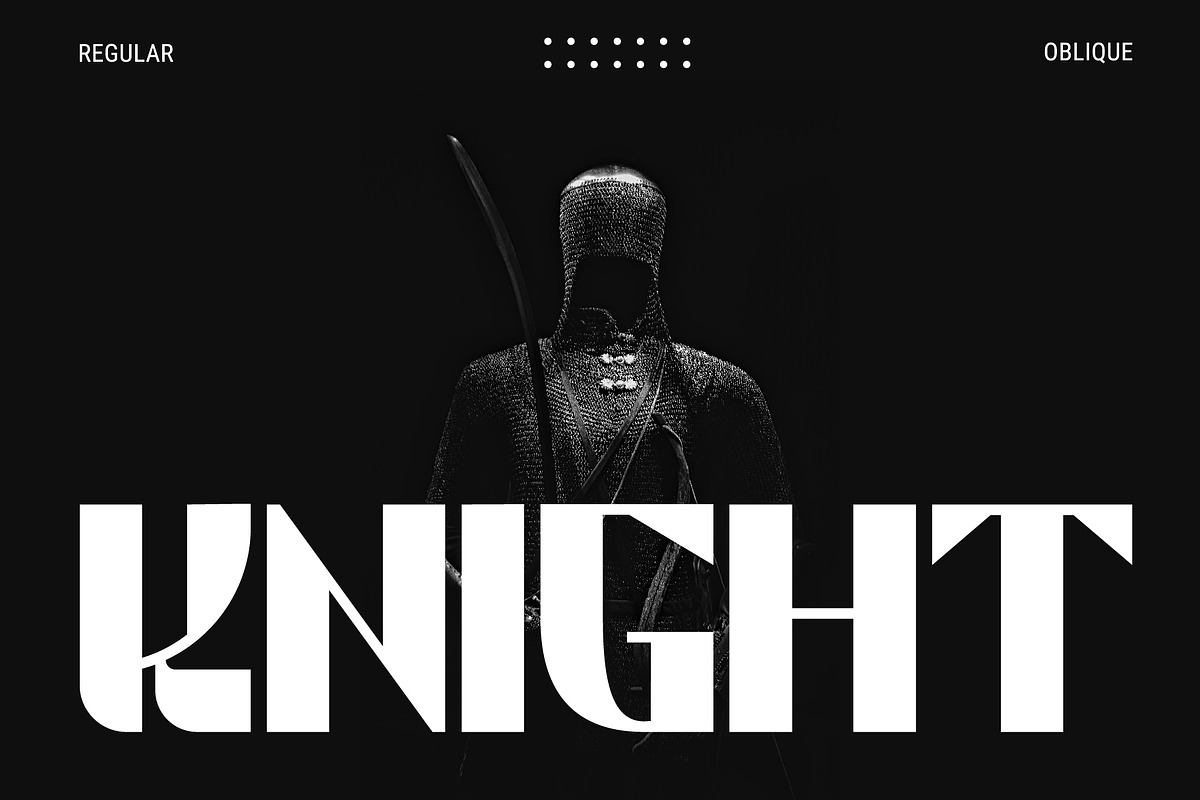
Knight | Display Regular + Oblique Free Download
Knight Font Free Download is a powerful display typeface that combines bold structure with sleek style, offered in both Regular and Oblique versions. Designed for strong visual impact, Knight is ideal for posters, headlines, album covers, logo designs, and branding that demands attention and modern flair.
With sharp angles, clean lines, and a commanding presence, Knight Font Free Download delivers versatility and strength in both styles. The Oblique version adds an extra layer of dynamic motion, perfect for futuristic themes, editorial layouts, or bold creative campaigns.
Knight is built for display use—making statements, turning heads, and giving your designs a strong visual identity. It pairs well with minimal sans-serifs or subtle scripts to create a striking contrast and balance in your compositions.